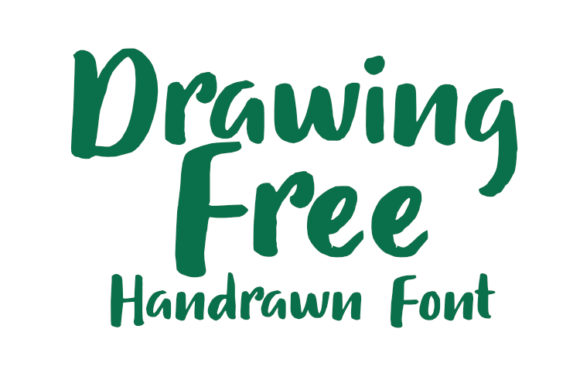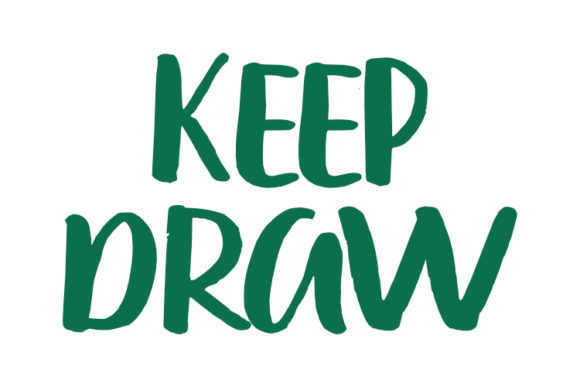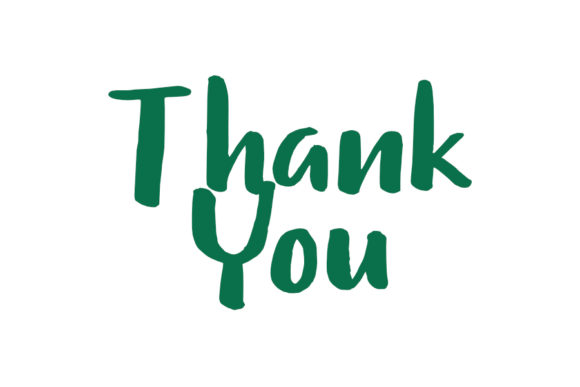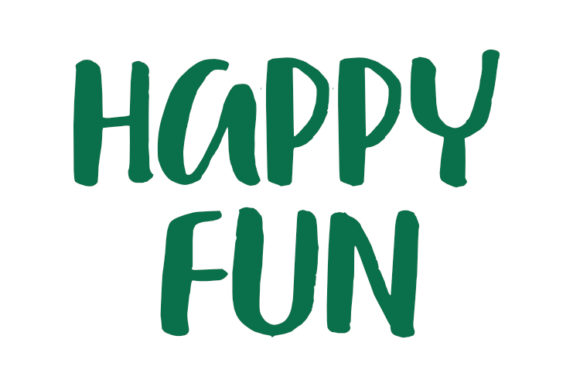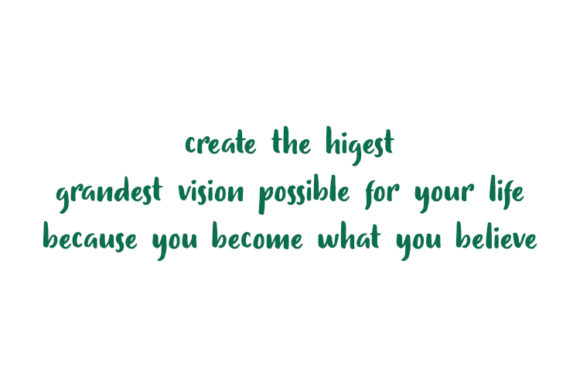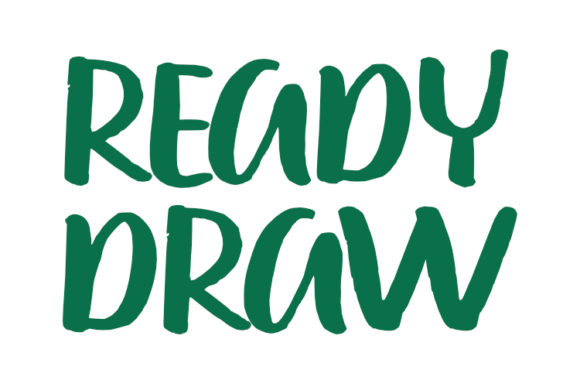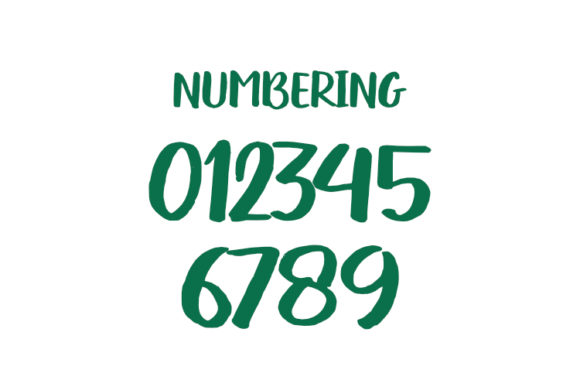
Drawing Free Font
About Drawing Free Font
Drawing Free is inspired by ink lettering and carries a distinctly personal feel. It will turn any design idea into an authentic work!